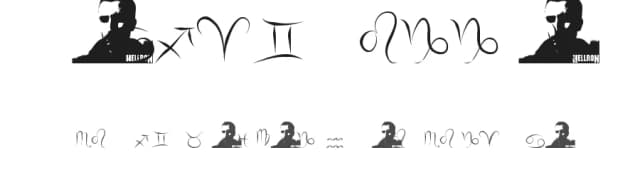
About Old Skull Hellron Font
Old Skull Hellron is a dingbat font designed by Hellron Design. It includes 653 glyphs, a regular weight, TTF (TrueType) format, and 292 languages. Old Skull Hellron is free to download; check the license details on this page before commercial use. Dingbat fonts like Old Skull Hellron work best for icons, ornaments, bullet points, and decorative accents.
Old Skull Hellron Font is a versatile dingbats font that works for both headings and body text. Pair it with a contrasting sans-serif or serif font to add visual interest and a clear distinction between titles and body copy.